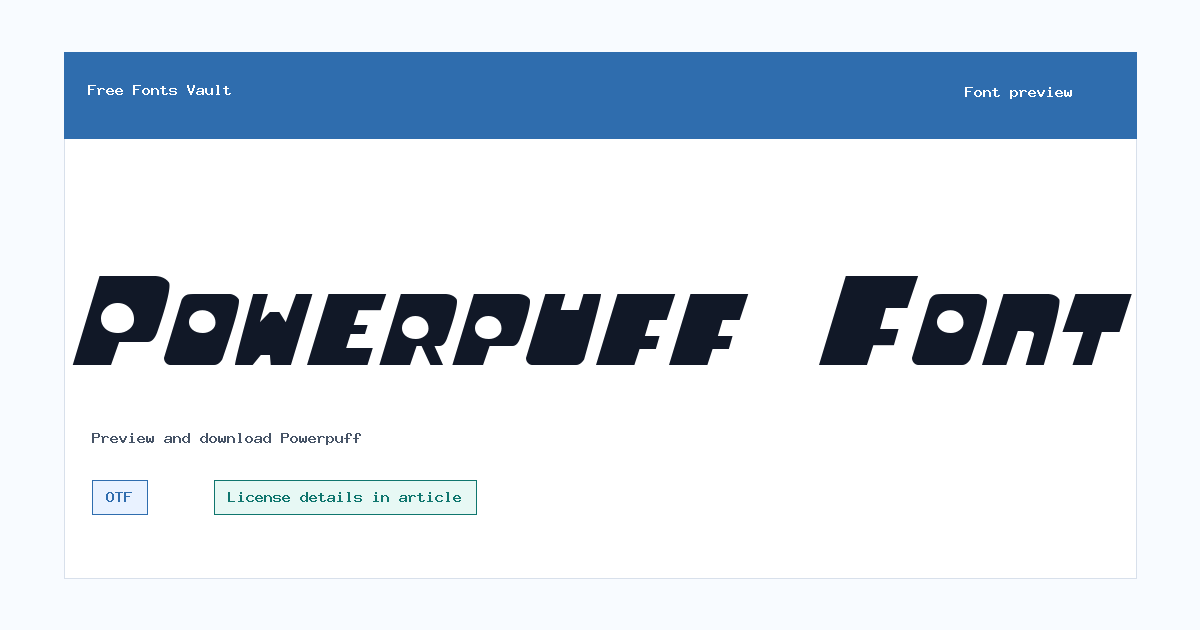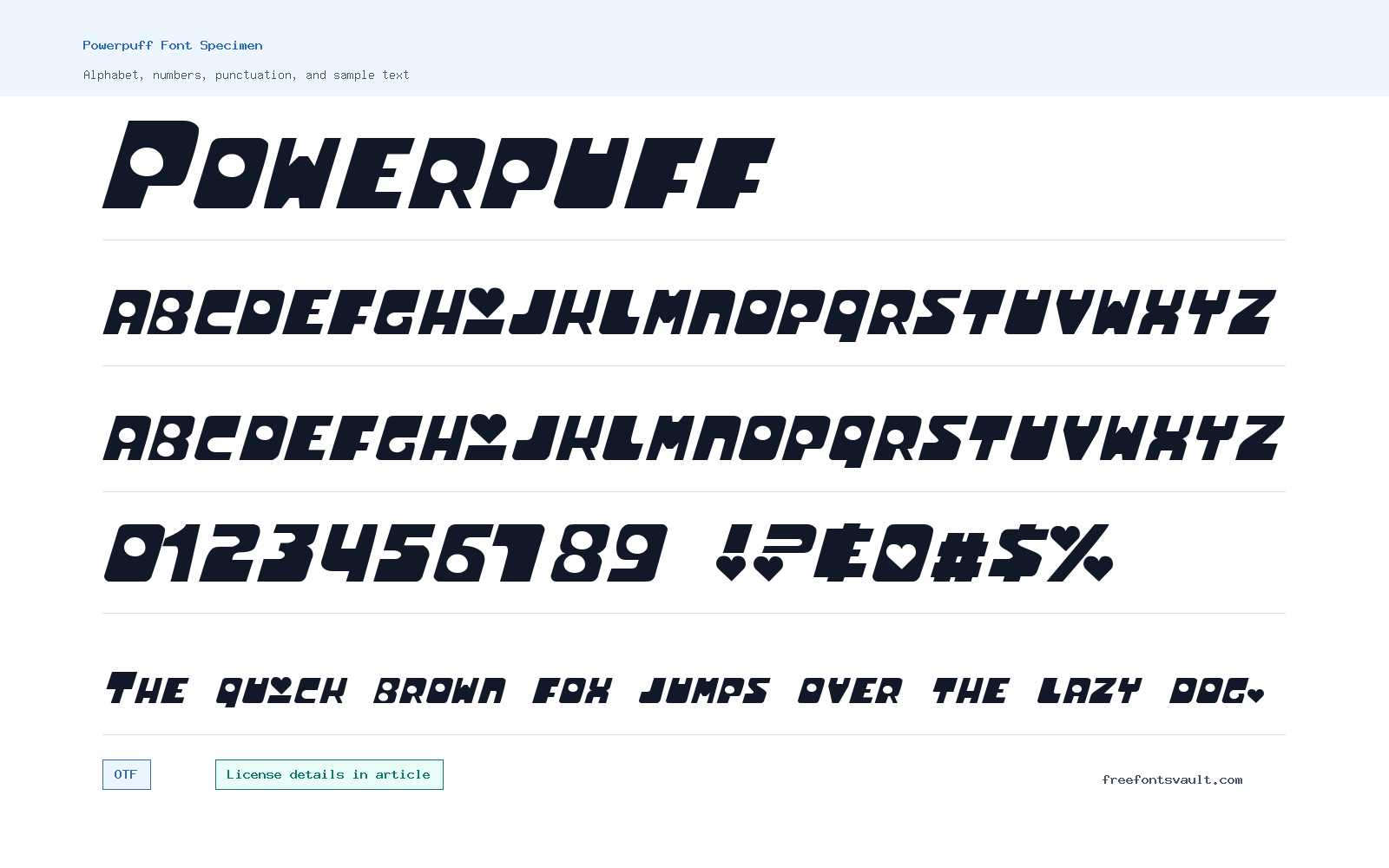
Powerpuff
- Designer Neale Davidson
Powerpuff is a playful display font with rounded, bouncy letter shapes made for short, eye-catching text. It works best when you want a fun cartoon feel without using it for long reading.
Powerpuff is credited to Neale Davidson / Pixel Sagas and comes as an OpenType font file on Free Fonts Vault. Its style is closely associated with the look of The Powerpuff Girls logo, but public sources note that the original show logo was custom drawn rather than made from a standard font. Treat Powerpuff as a fan-style or inspired display face, not an official Cartoon Network typeface.
Use it for playful personal projects such as birthday graphics, stickers, thumbnails, scrapbook titles, classroom-style headings, mockups, and short kids-themed designs. The letters have a strong personality, so keep text brief and test spacing in the preview before downloading. For better readability, pair it with a simple sans serif for body text, captions, dates, or instructions.
- Rounded cartoon display style suited to short titles and decorative headings
- Personal fan-style headings, party invitations, stickers, and playful mockups
- Thumbnails, posters, classroom graphics, scrapbook titles, and short decorative text
Powerpuff is credited to Pixel Sagas – Neale Davidson. Pixel Sagas is associated with Neale Davidson’s font work.
Is Powerpuff the official Powerpuff Girls logo font?
No. Fonts In Use notes that the original Powerpuff Girls logo is custom drawn. Powerpuff is a separate font credited to Neale Davidson / Pixel Sagas with a similar inspired style.
What designs does Powerpuff work best for?
It works best for short playful text: party graphics, stickers, fan-style mockups, social thumbnails, classroom titles, posters, and kids-themed headings. Use a simpler font for longer text.